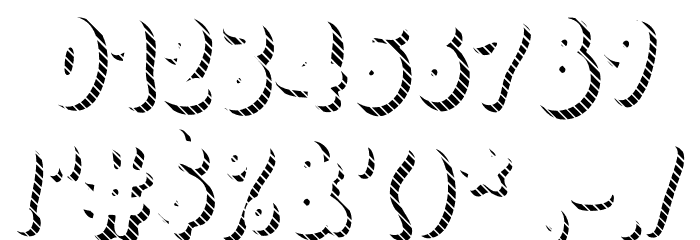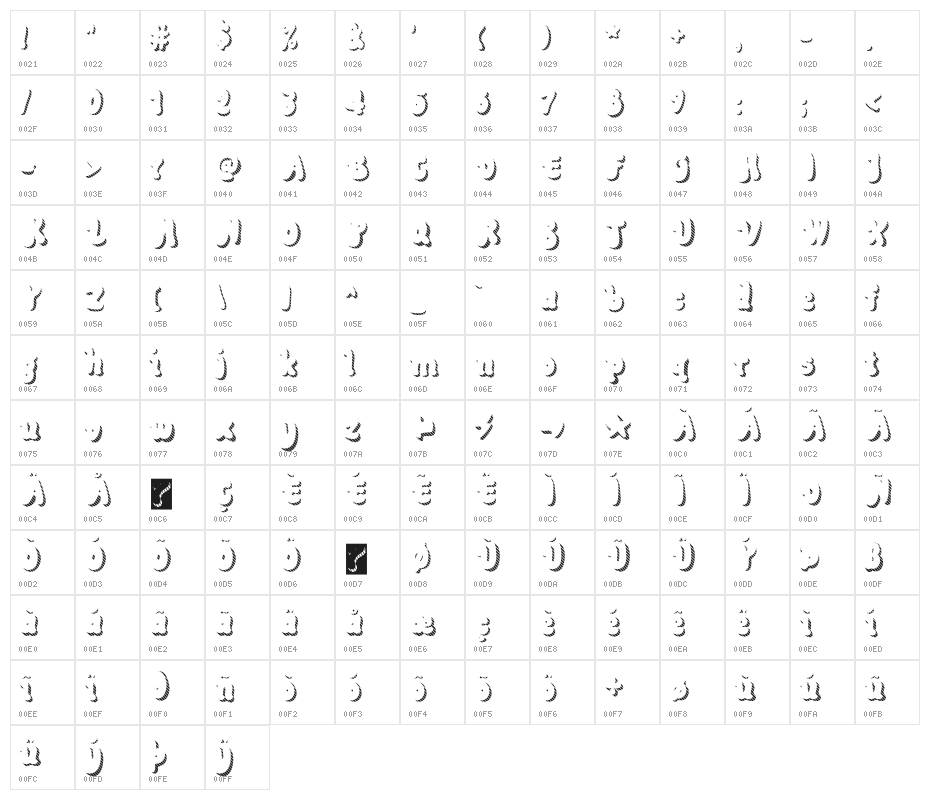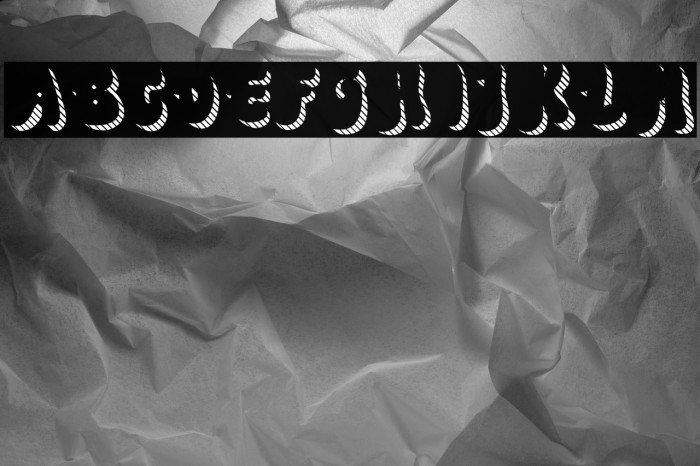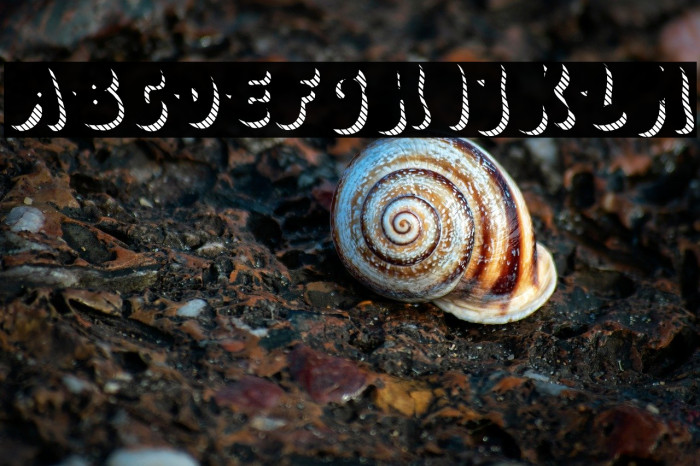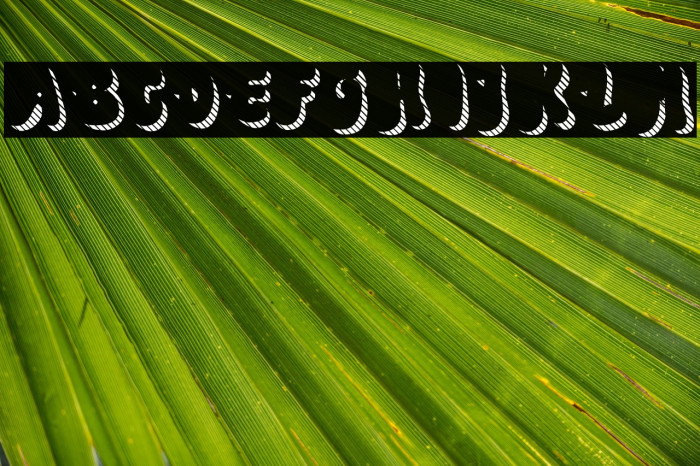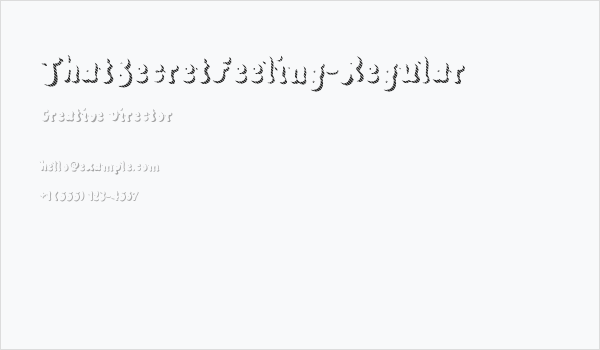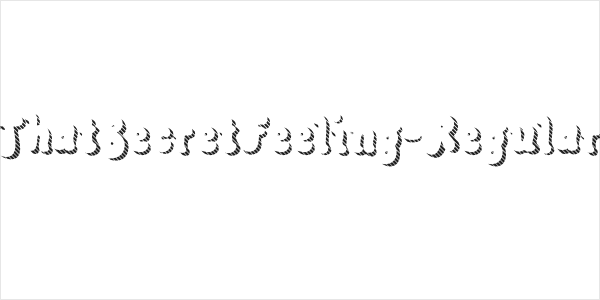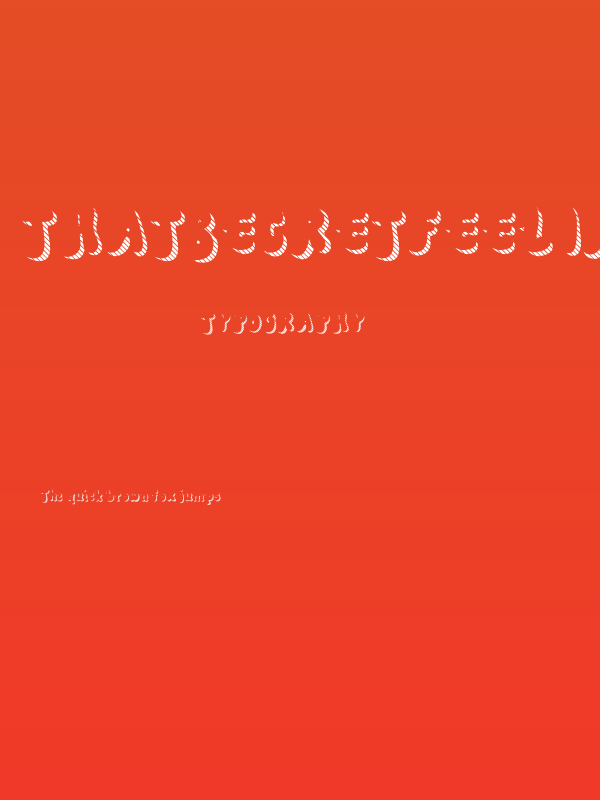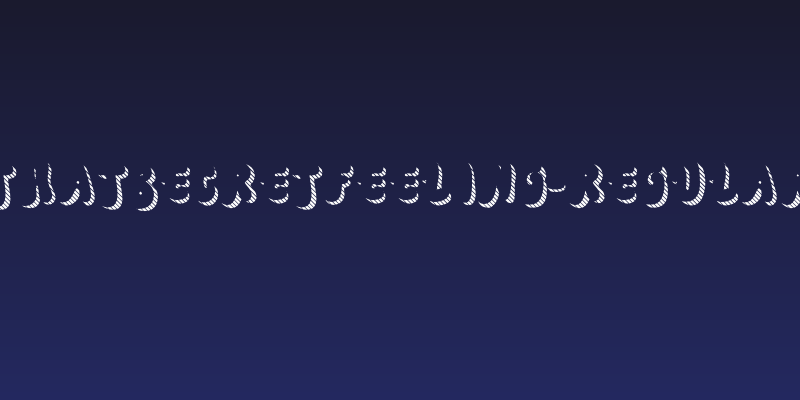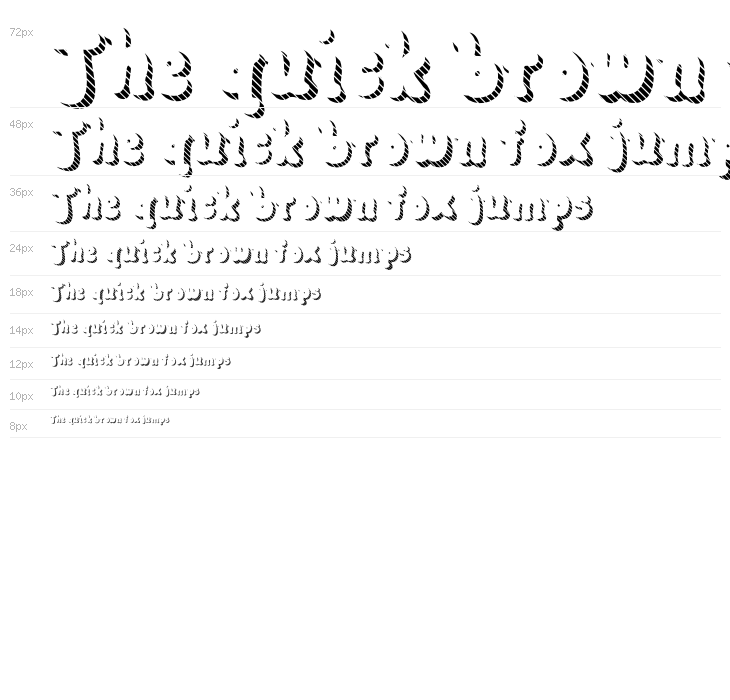
ThatSecretFeeling-Regular Font
ThatSecretFeeling-Regular Description
This font features a unique, decorative style with a striped pattern running diagonally across each character. The letters are bold and have a playful, whimsical appearance, making them stand out. The uppercase and lowercase letters maintain a consistent style, with rounded edges and a slightly italicized slant. Numbers and special characters follow the same design, ensuring uniformity across the font. The overall look is dynamic and eye-catching, suitable for creative and artistic projects.
| Proposed Projects | Ideal for creative projects such as posters, invitations, and branding materials where a unique and artistic touch is desired. |